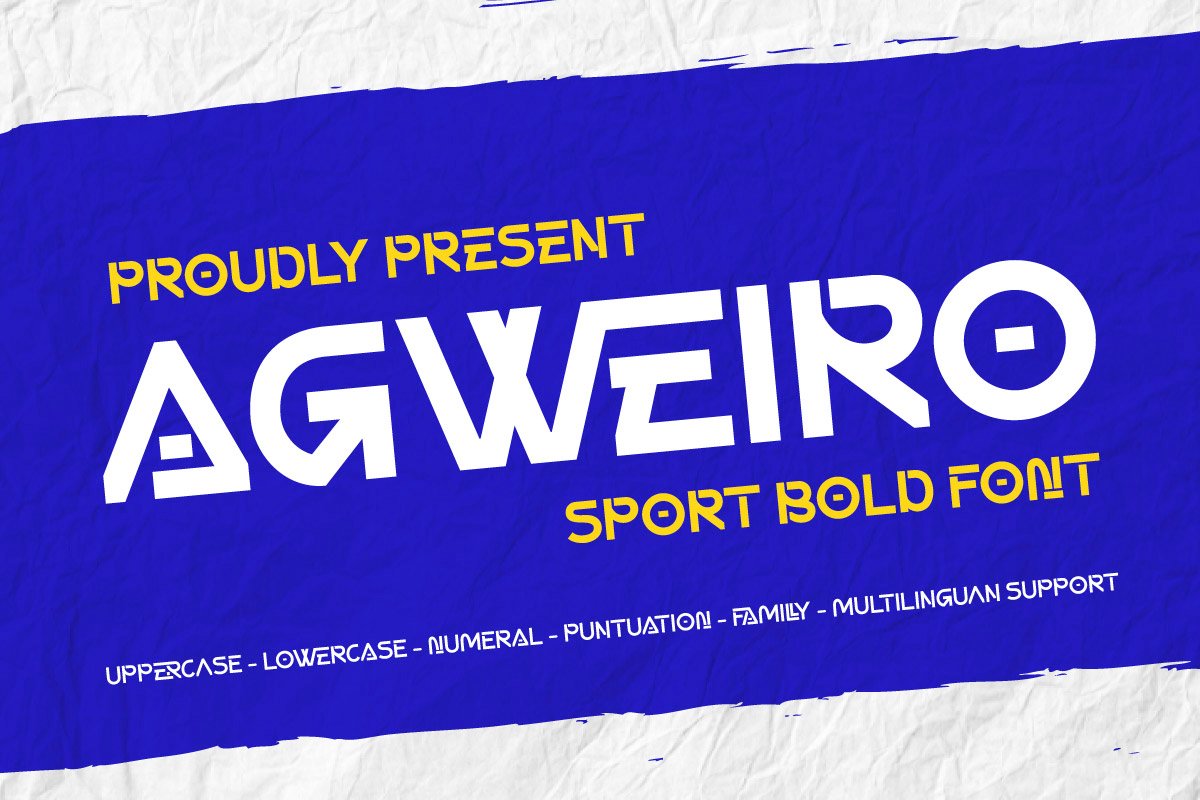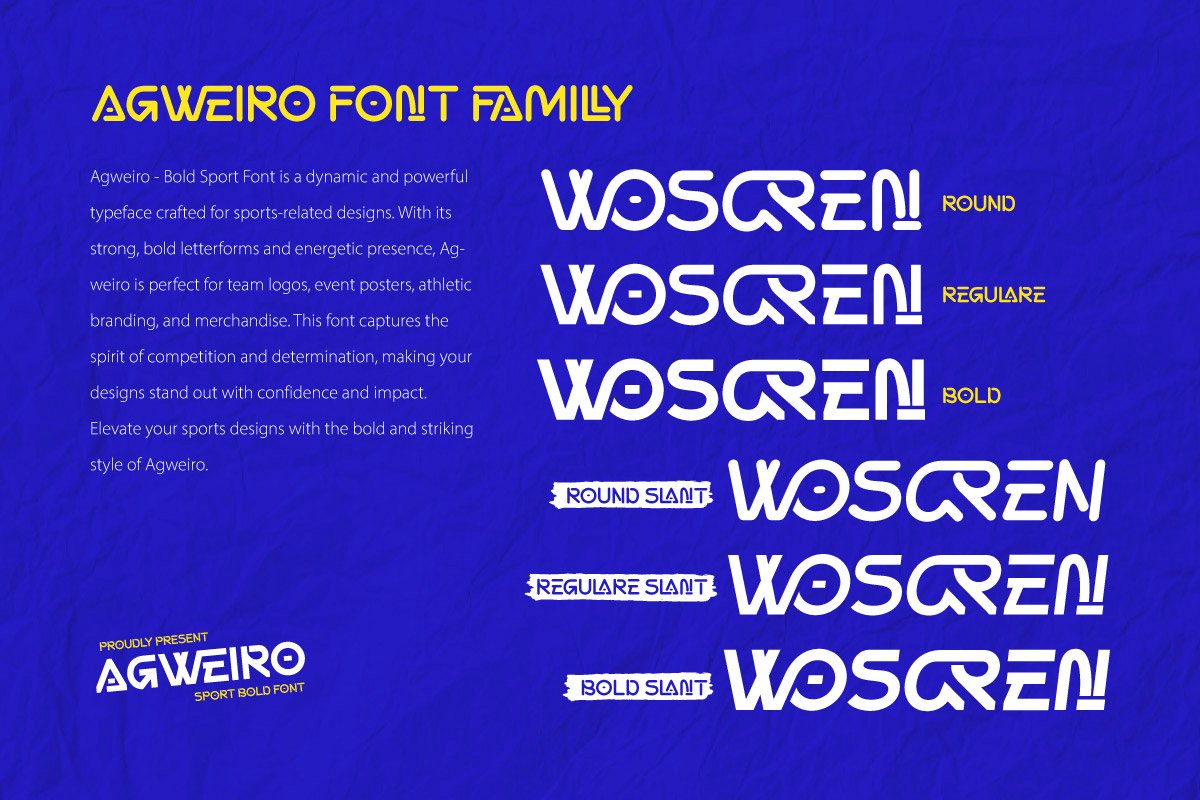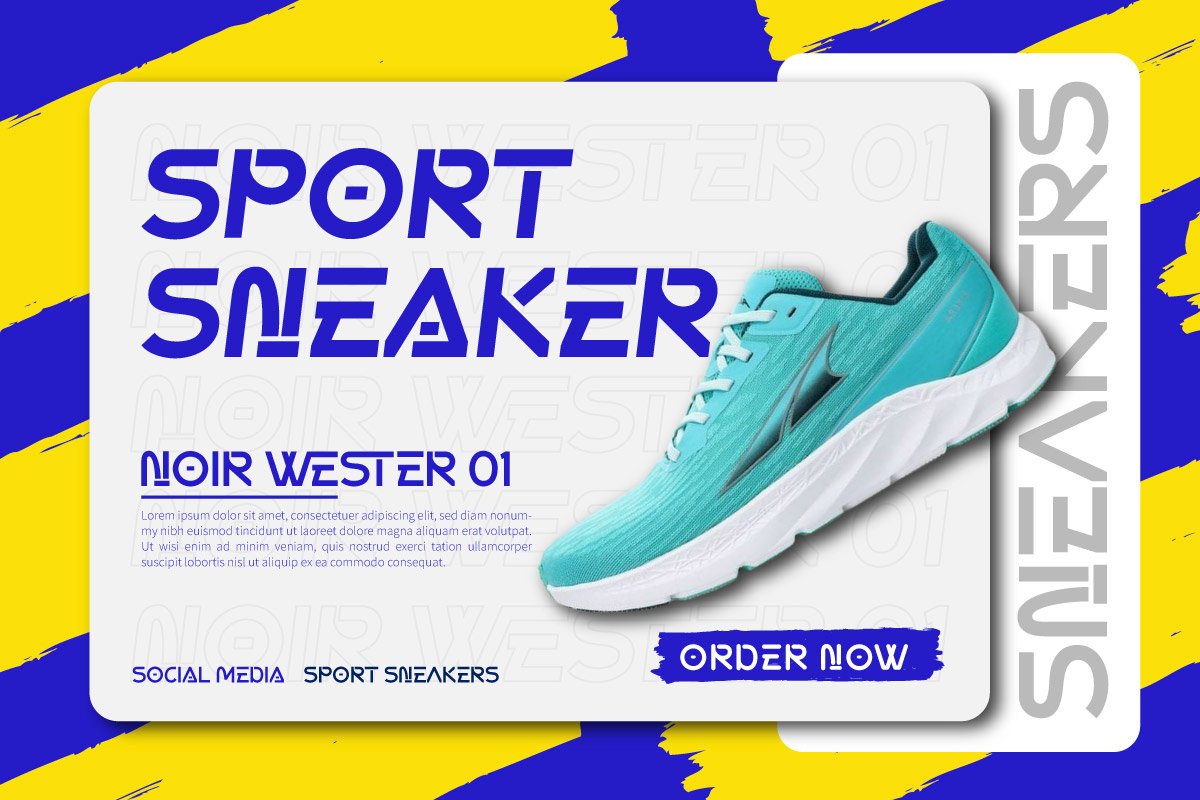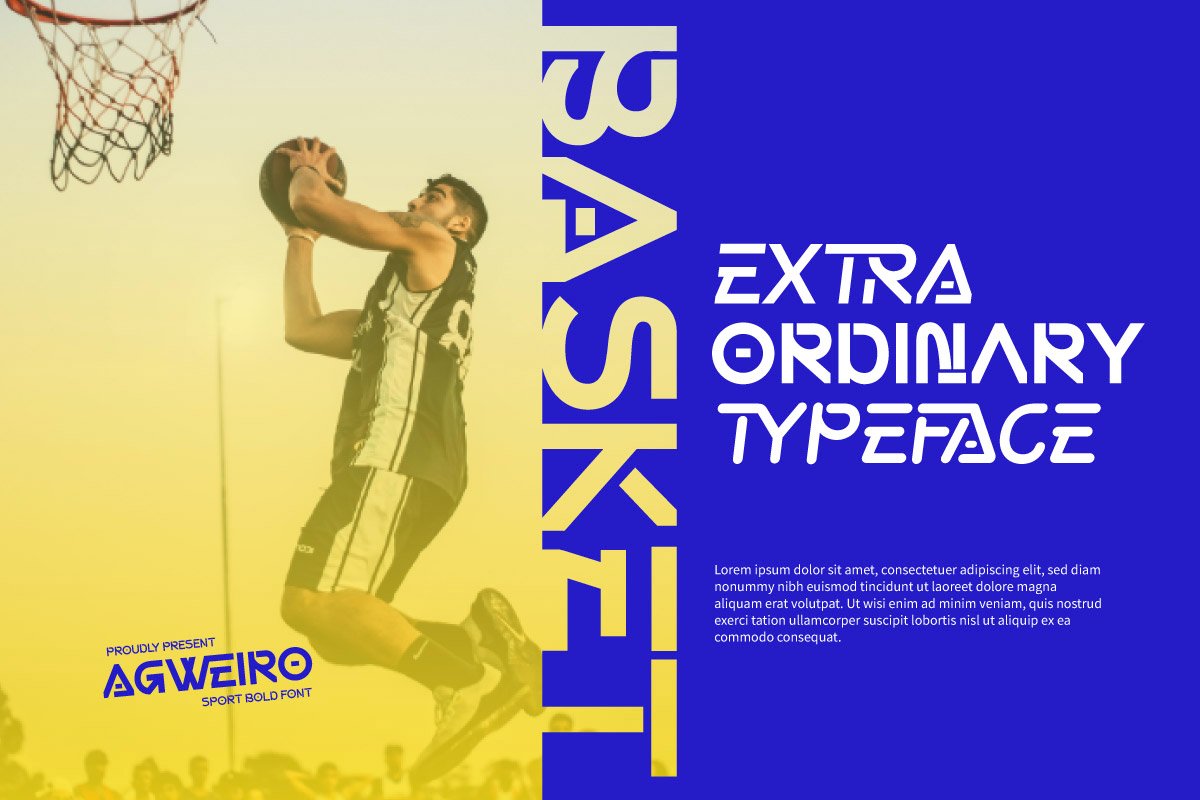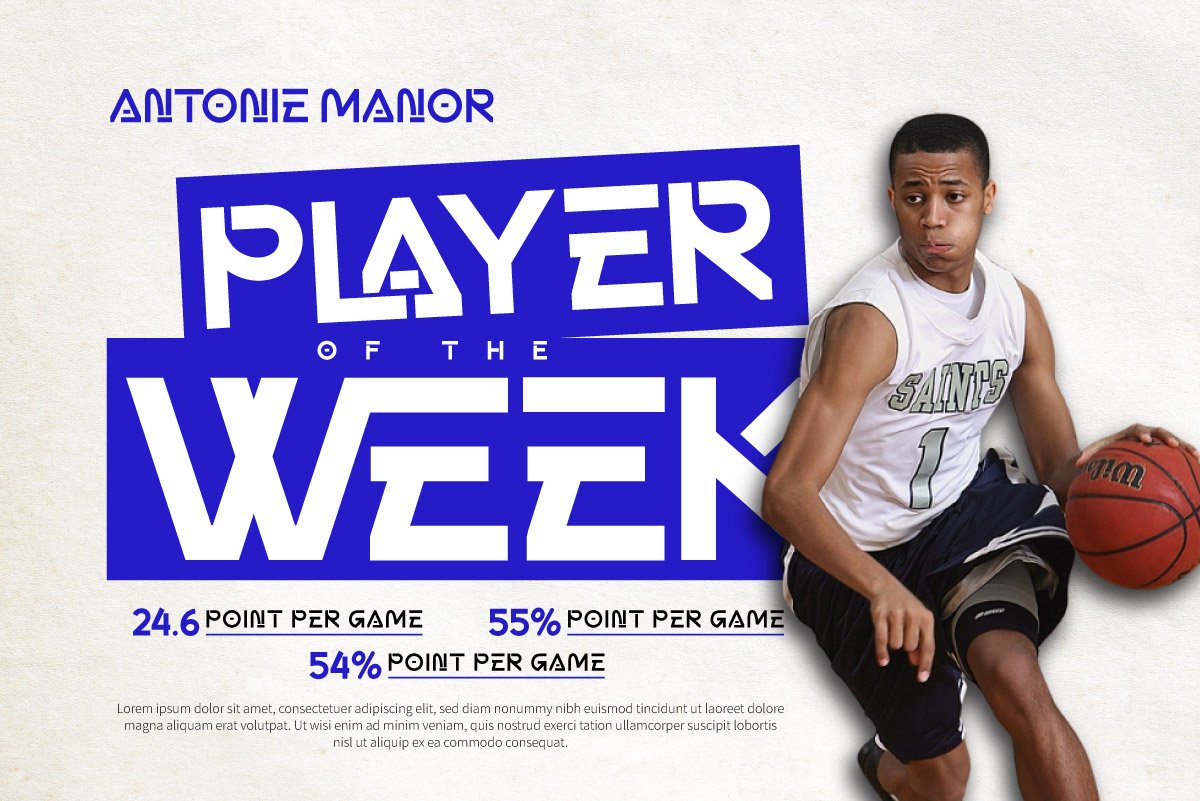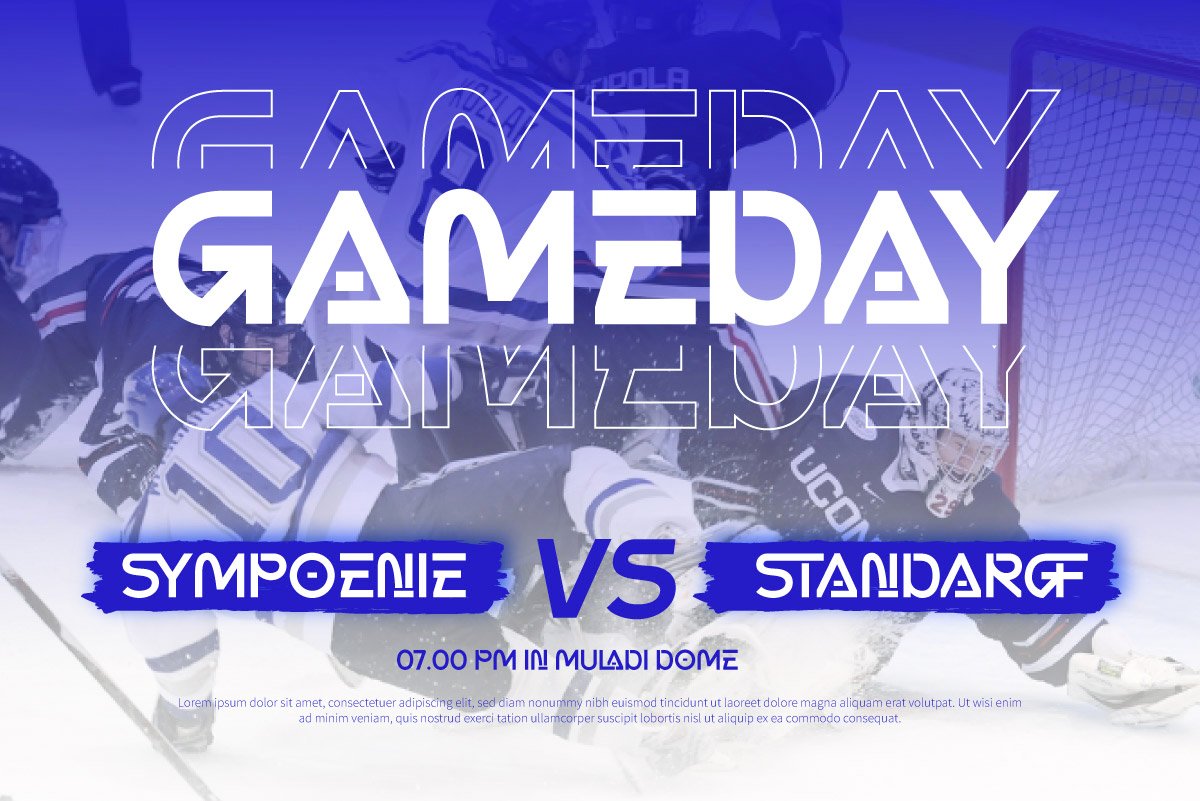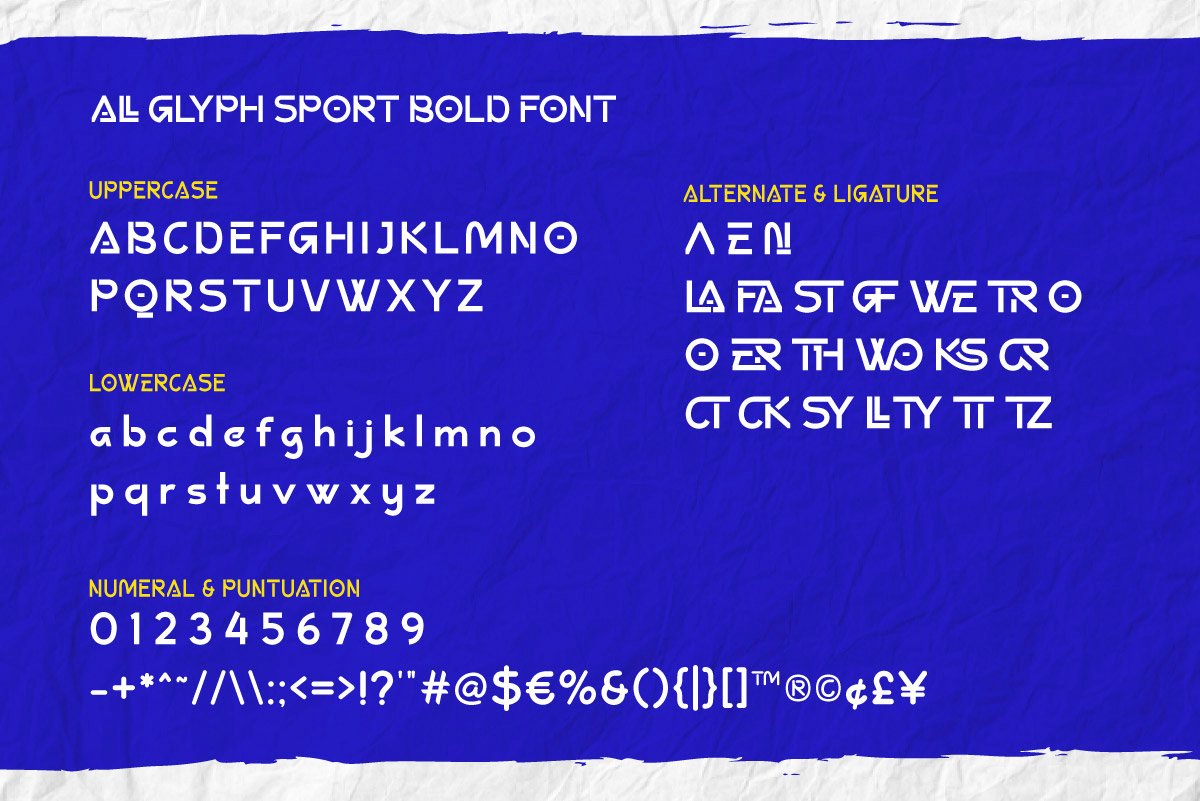
Agweiro – Bold Sport Font
Agweiro is a bold and energetic sport display font built to capture strength, speed, and precision. With sharp geometric cuts and dynamic letterforms, it delivers a modern look that radiates confidence and power. Designed with versatility in mind, Agweiro comes in Regular, Bold, Rounded, Regular Slant, Bold Slant, and Rounded Slant styles — making it a complete font family for sports branding.
Whether you’re designing team logos, game-day posters, jersey numbers, event banners, or esports graphics, Agweiro ensures your message stands out with impact. It includes uppercase, lowercase, numerals, punctuation, and multilingual support, giving you everything you need for professional, high-energy designs.
Agweiro isn’t just a font — it’s the voice of competition, victory, and passion for sports.